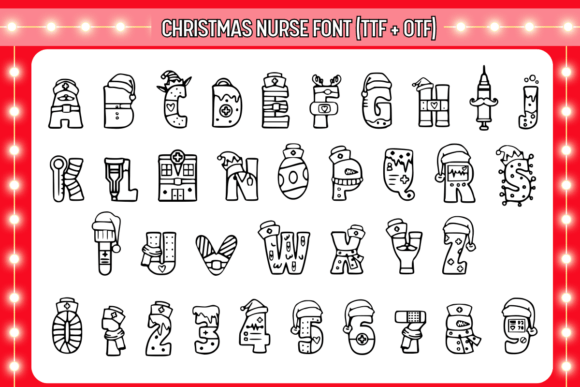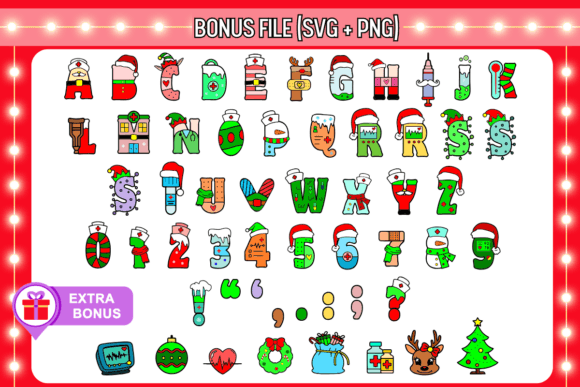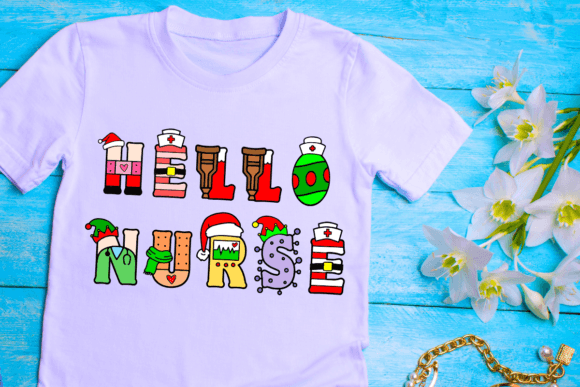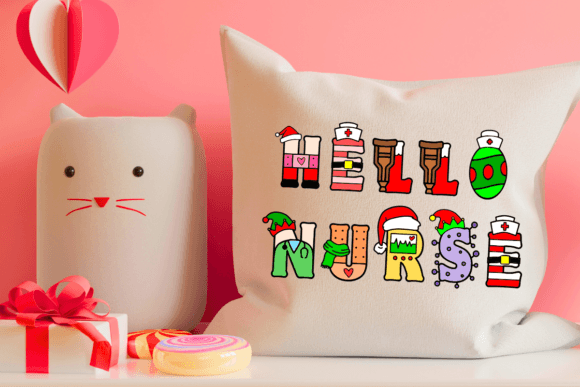
Introduction to Christmas Nurse Font
Christmas Nurse is a fun and festive font featuring playful nurse-themed decorations on each letter, like stethoscopes, syringes, and bandages.
Perfect for holiday cards, nurse appreciation gifts, or Christmas decorations with a medical touch .